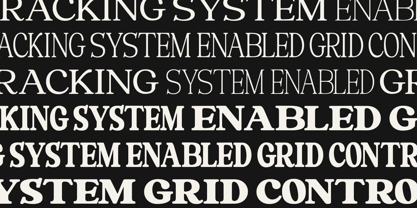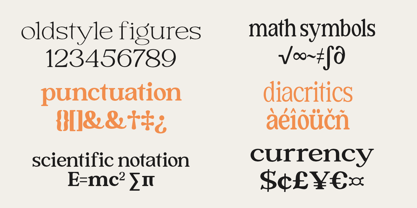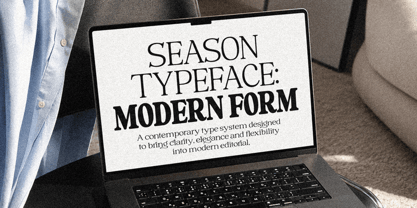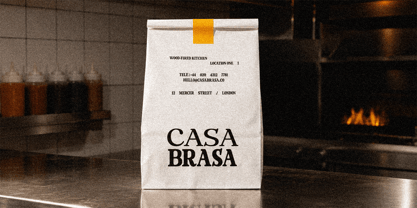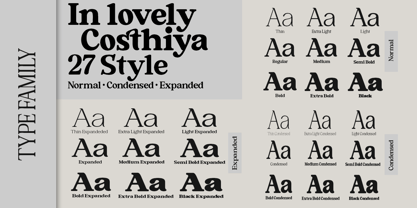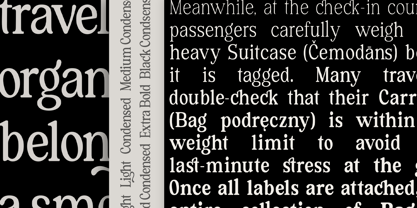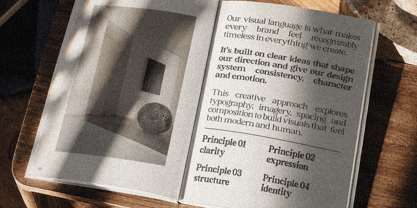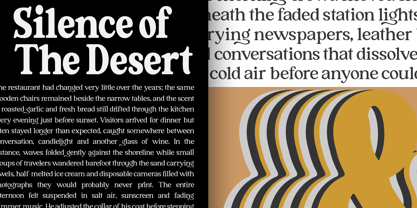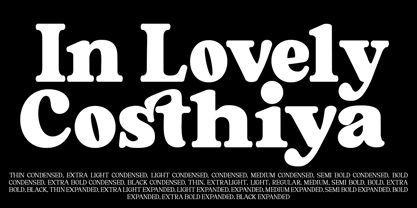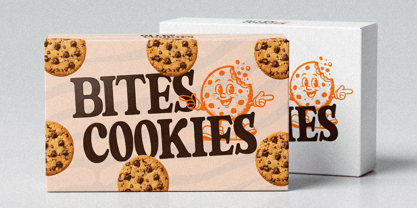
Costhiya
The Costhiya Font Family was designed by Zaki Muhammad and published by madjack.font. Costhiya contains 27 styles and family package options. More about this family
Costhiya is a striking vintage serif typeface that blends timeless elegance with bold personality. Designed with strong curves, bold strokes, and distinctive decorative serifs, it captures the charm of classic typography while maintaining a modern, refined appeal. The extensive font family includes Condensed, Regular, and Expanded styles in various weights, making it highly versatile for both display and branding purposes.
Perfect for logos, packaging, editorial layouts, posters, headlines, fashion branding, and luxury-inspired designs, Costhiya provides a strong visual presence that stands out in any creative project. With OpenType features and multilingual support, this font offers both style and functionality for professional designers seeking a bold yet sophisticated typographic solution.